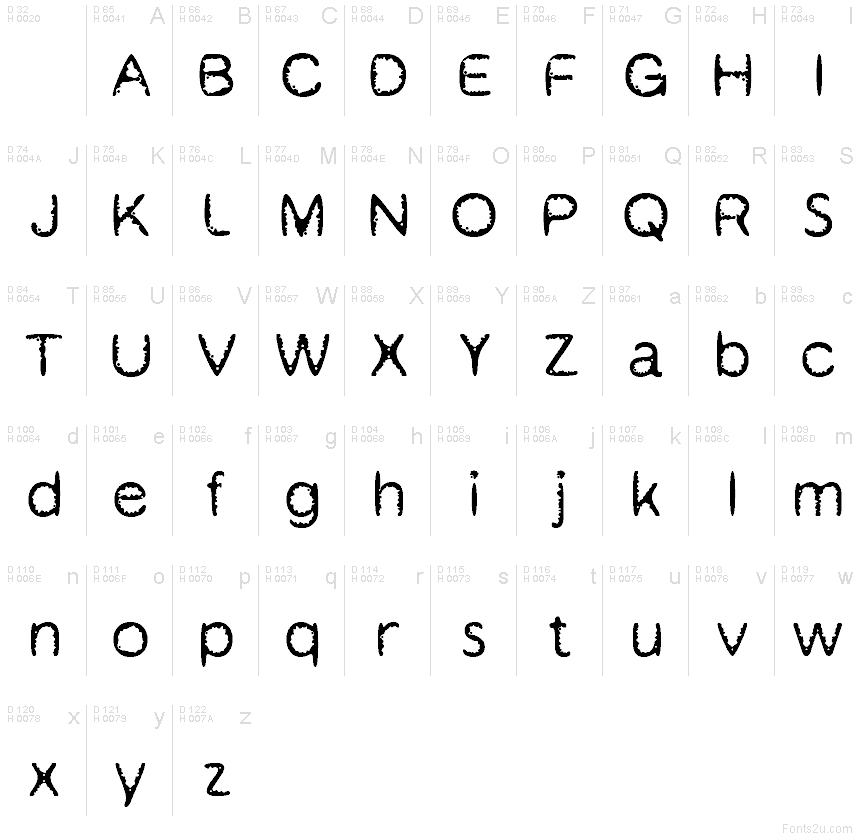
CSDeclandDrawn-Regular Demo
CS Decland Drawn font by Craft Supply Co. masterfully combines an irregular form with a subtle textured appearance and eroded finish to achieve a quirky and artistic flair. Its casual mood is vivid along with playful and lively letters which makes this display font worth trying in various design projects.